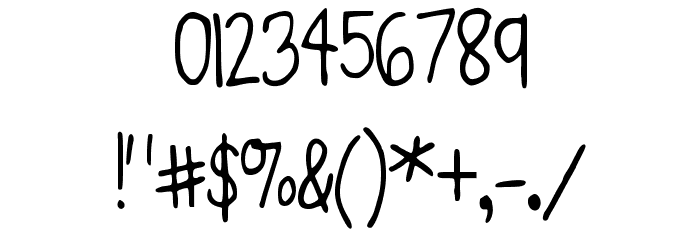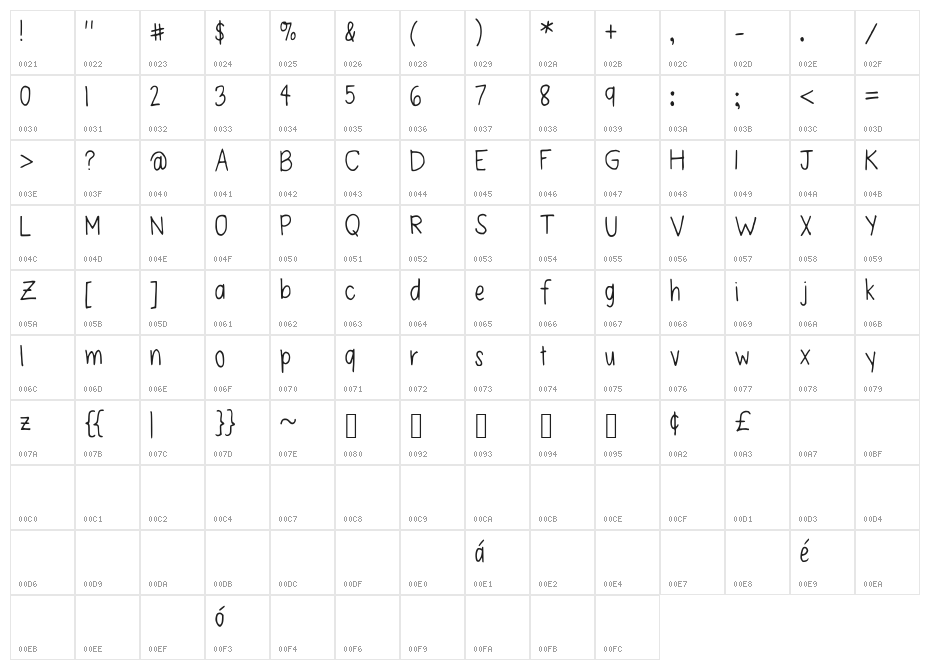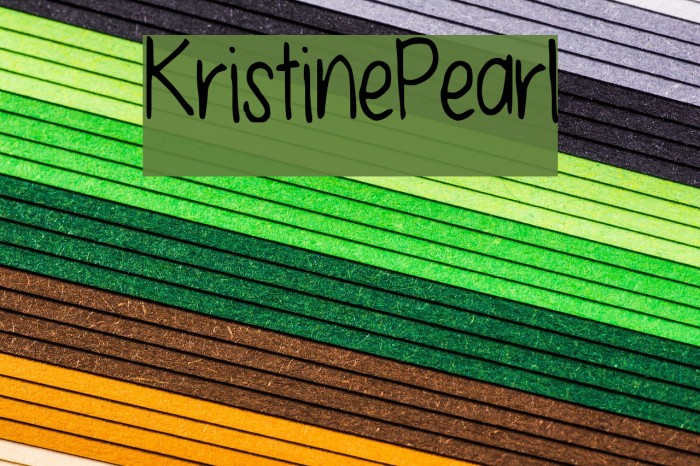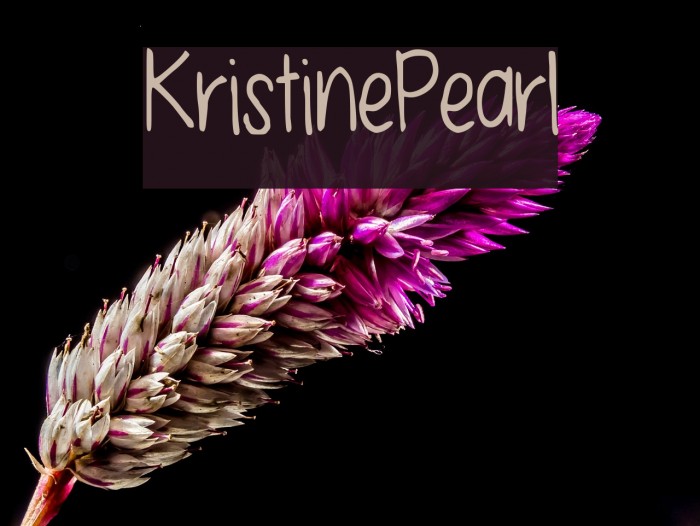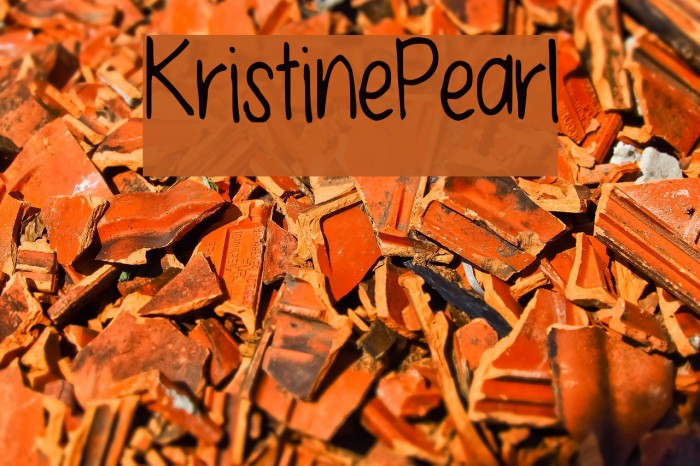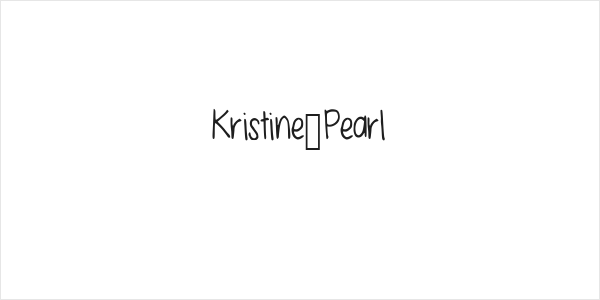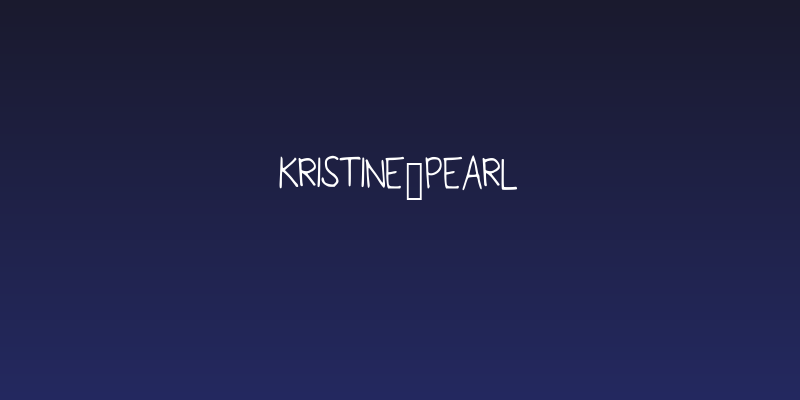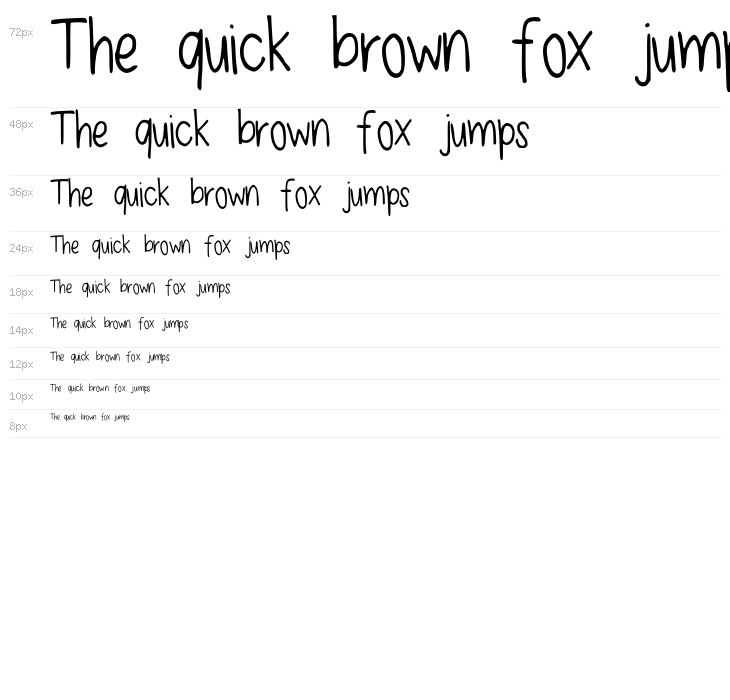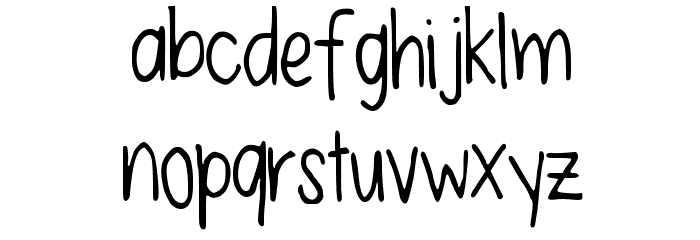
Kristine_Pearl Font
Kristine_Pearl Description
This font features a playful and casual handwritten style, characterized by its smooth, rounded edges and slightly uneven letterforms that give it a friendly and approachable appearance. The uppercase and lowercase letters maintain a consistent flow, while the numerals and special characters complement the overall aesthetic. The strokes are moderately thick, providing good legibility without sacrificing the informal charm. This font is versatile, suitable for a variety of creative projects where a personal touch is desired.
| Proposed Projects | Ideal for greeting cards, children's books, personal blogs, and informal branding. |